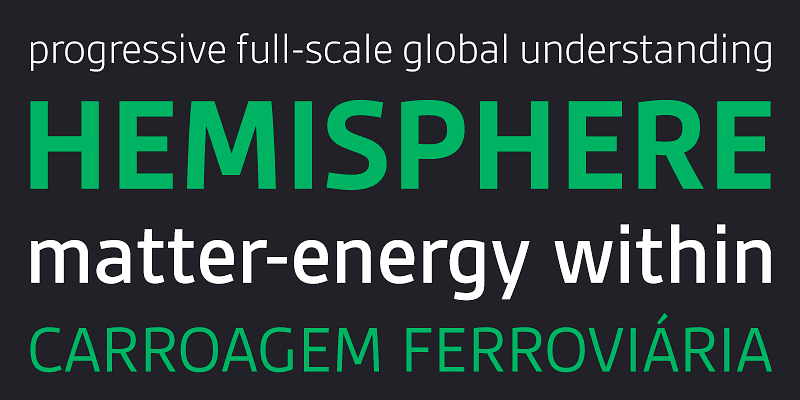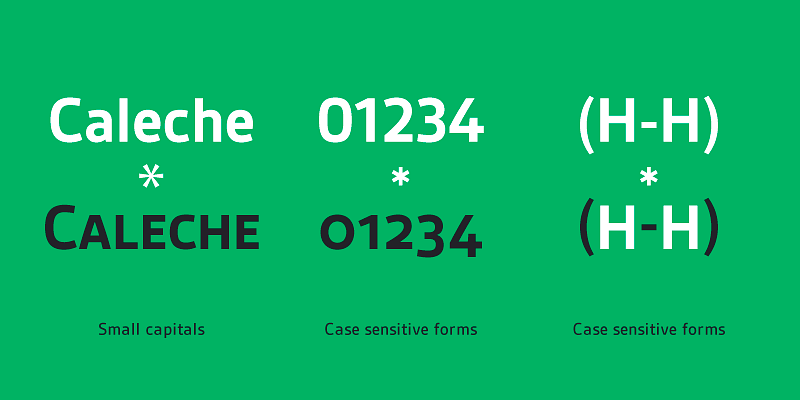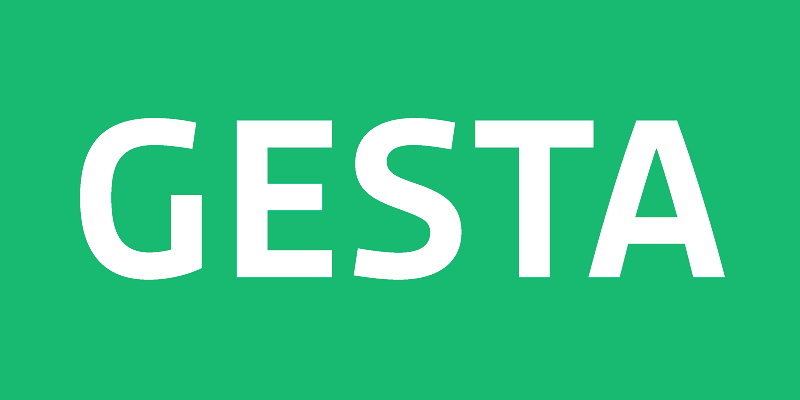
Gesta is a versatile sans serif suitable for both corporate and editorial purposes. With its generous x-height and subtly curved strokes, Gesta combines a modern look with a warm feel.
Rui Abreu
Rui Abreu is a Portuguese type and graphic designer. He studied Graphic Design at FBAUP (Faculdade de Belas Artes da Universidade do Porto), where he graduated in 2003.
In parallel with his interactive media designer job, Rui Abreu has been working on commercial fonts since 2006.